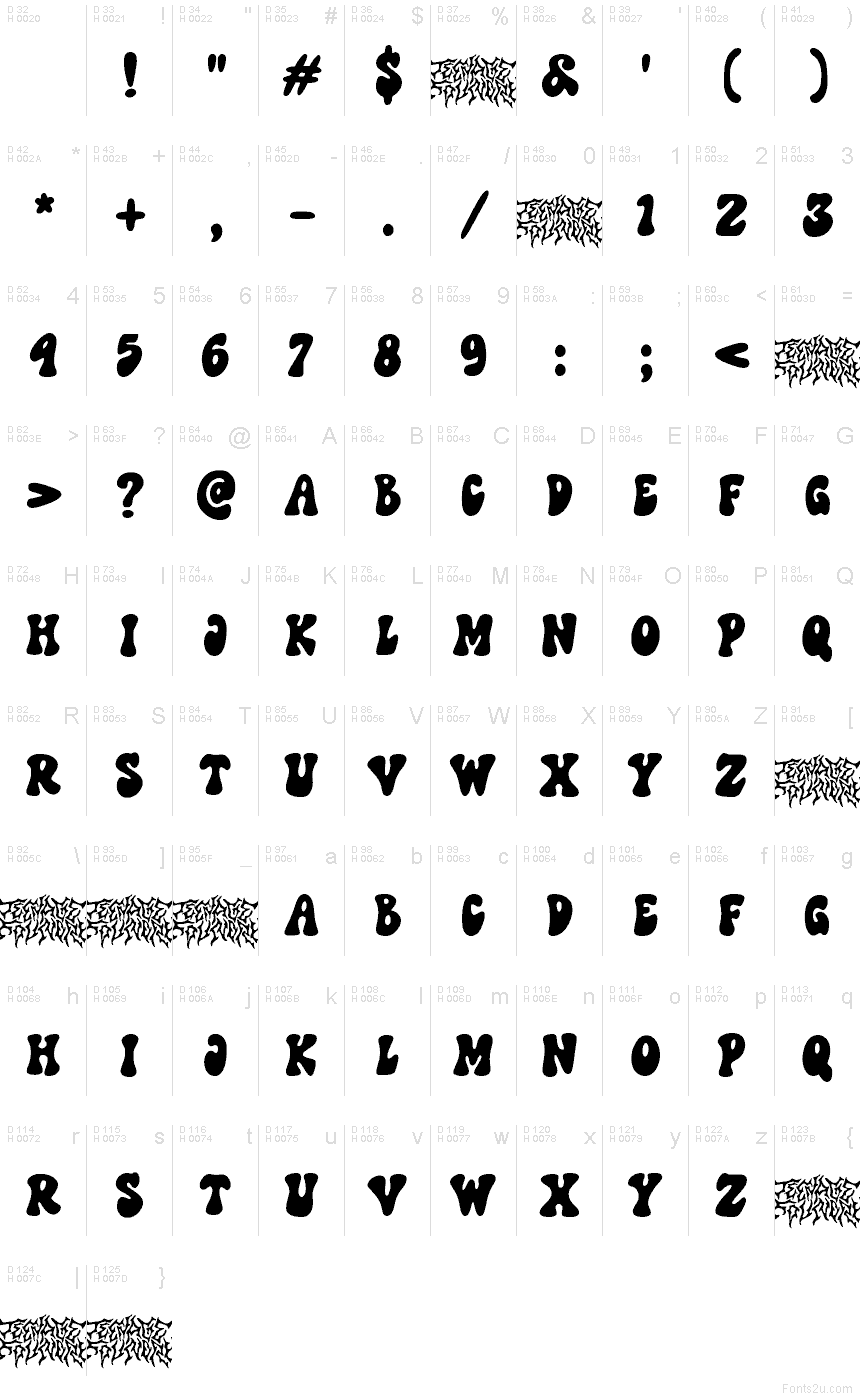
Teenage Madness font by Teenage Foundry is a free groovy display typeface with letters that look like they’ve been poured onto the page-thick, blobby, and a little bit wild. The shapes feel squishy and hand-drawn, with playful curves that wobble just enough to feel rebellious without becoming unreadable. It has that sweaty-gig-poster energy: loud, messy, and full of attitude.
Using Teenage Madness, you can crank up the chaos on band posters, festival branding, party flyers, streetwear merch, stickers, and bold social graphics. This free font shines at big sizes where its inky blobs can breathe and overlap. Pair it with a clean, narrow sans serif for body text to keep the main message legible while the headlines go full madness.